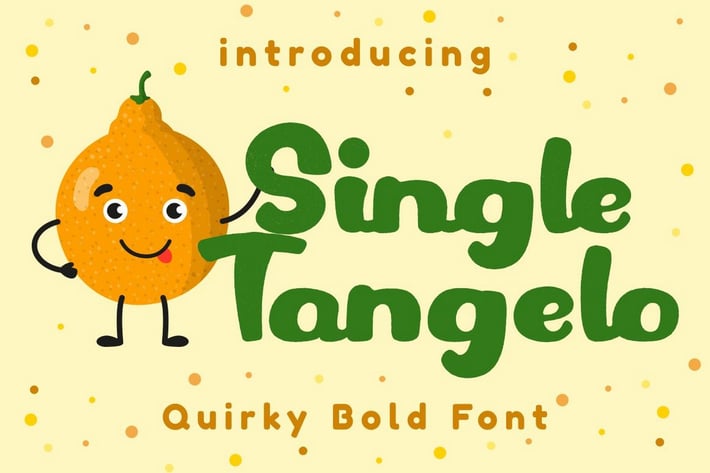
Single Tangelo - Quirky Bold Font
Single Tangelo - Quirky Script Bold Font. This font is a quirky and script font with a playful style and style for children. This font has a lot of character ligatures, as many as 151 ligatures. With that much ligature will make this font more unique and interesting. This font is perfect for projects related to children. This font is perfect for logos, greeting cards, quotes, svg, posters, logos, crafting, stickers, toys, and more.
Feature :
- Numerals And Punctuations
- Opentype (Alternates And Ligatures)